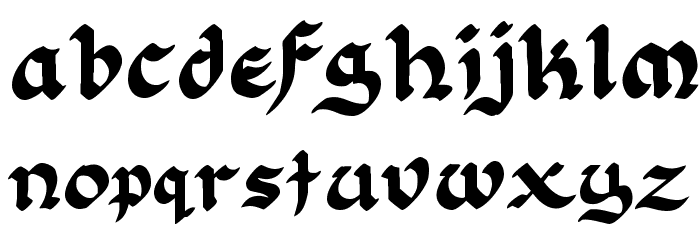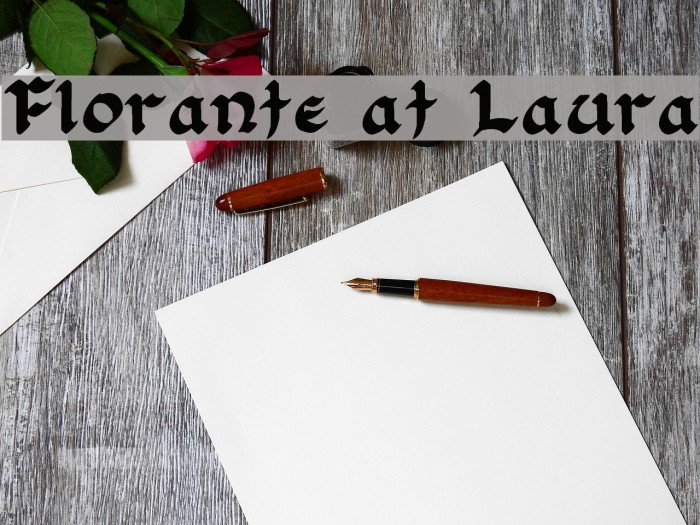
Florante at Laura Font
This font exhibits a classic blackletter style, characterized by its intricate and ornate letterforms. The uppercase and lowercase letters are designed with sharp, angular strokes and elaborate curves, reminiscent of medieval script. The numerals and special characters maintain the same decorative flair, ensuring consistency throughout the typeface. The font's bold presence and historical aesthetic make it a striking choice for projects that require a touch of elegance and tradition.
A bold, decorative blackletter font with intricate, medieval-inspired letterforms.
- Proposed Projects: Ideal for historical documents, wedding invitations, book covers, and branding that requires a traditional or gothic touch.
- Overall Style: Vintage